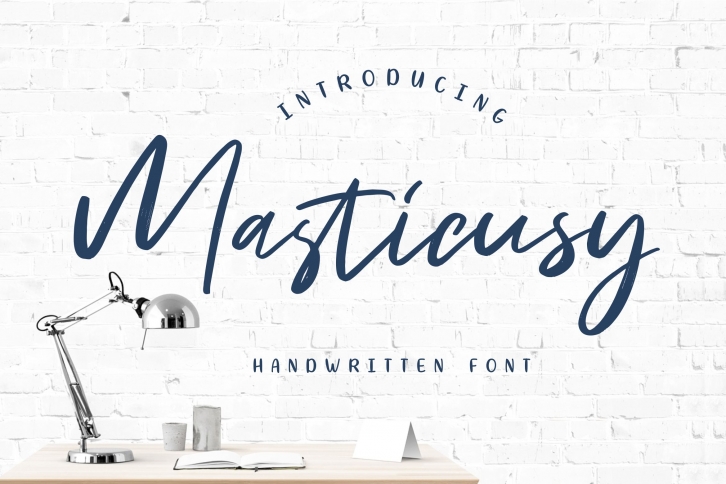
Masticusy Handwritten is a gorgeous font that was realeased on August 22, 2019. The font can be used in many style contexts and design environments. Perfect for invitations, magazines, websites, logos, and more! It was designed by Creatype Studio and the file size is 18.68 MB. Thanks for checking out this font!